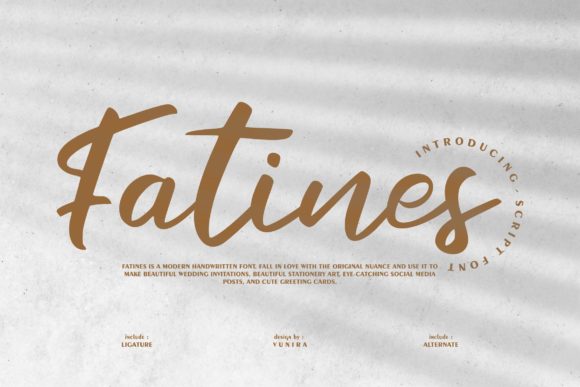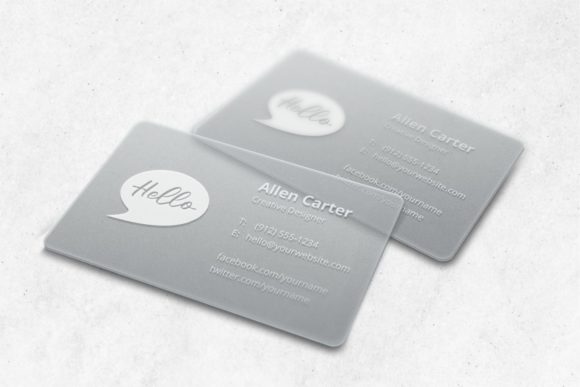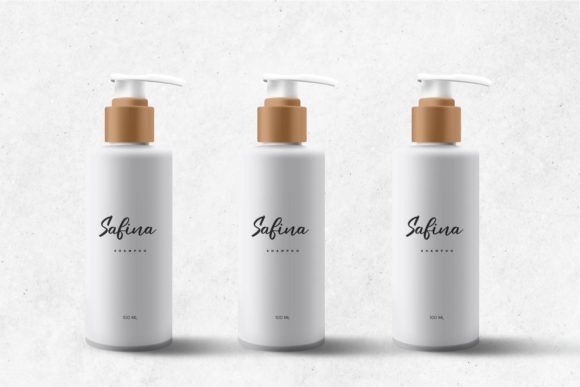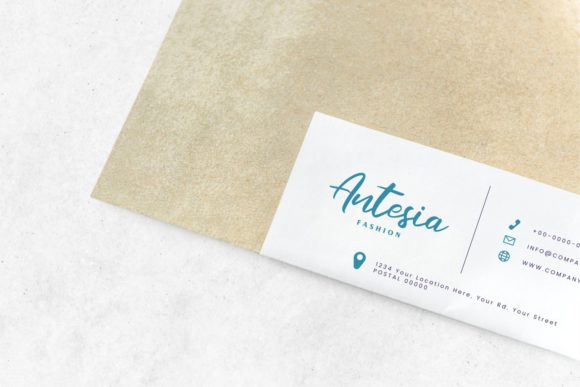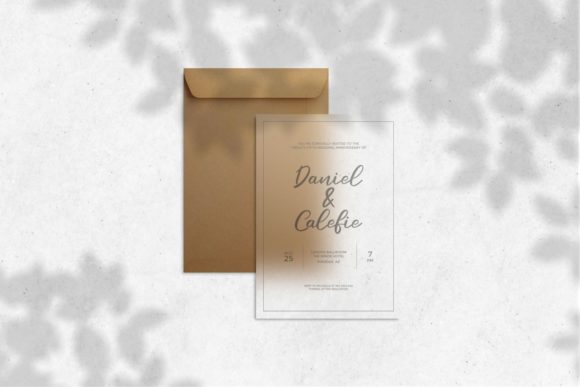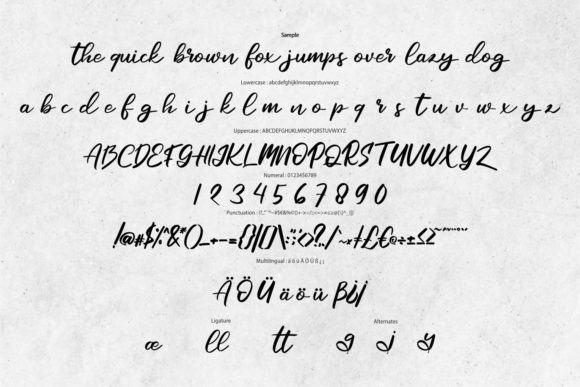
About Fatines Font
Fatines is a lovely paint brushed handwritten font. Thick lettered yet cursive, this font will make each of your designs stand out. Add it confidently to your projects, and you won’t be disappointed.